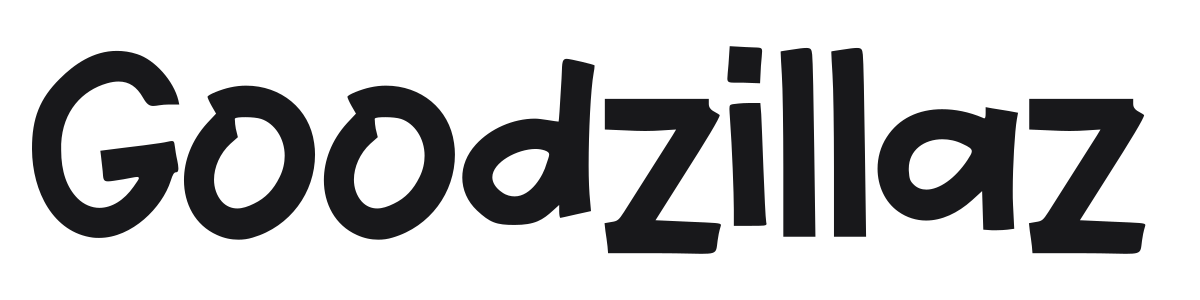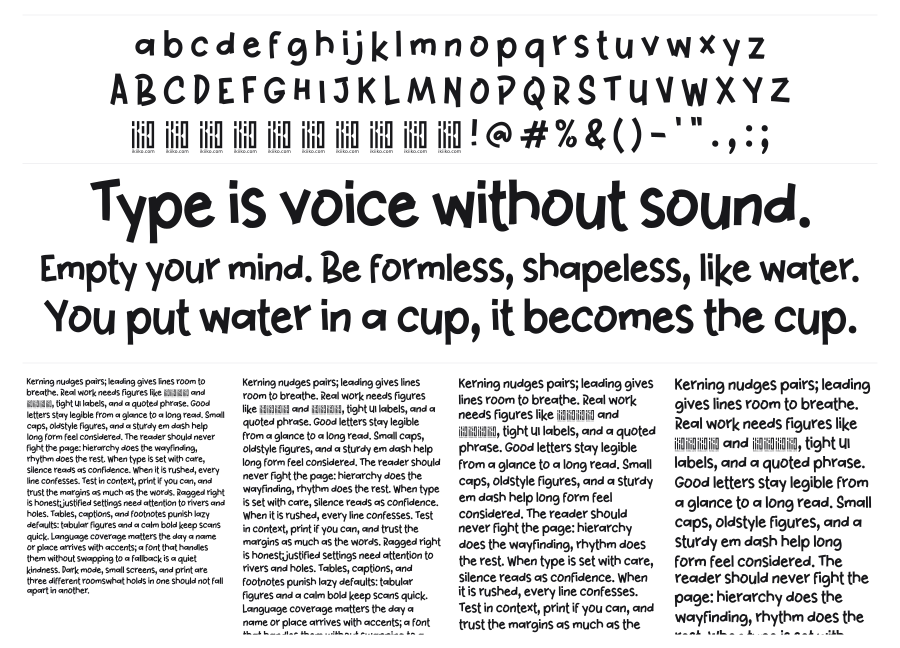
Goodzillaz
Goodzillaz is a bold, bouncy kids font with chunky rounded strokes and an irregular hand-drawn baseline. The organic wobble in each character gives it genuine charm rather than a mechanical cartoon feel. It works well at large sizes for children's book covers, product packaging, and playful branding.